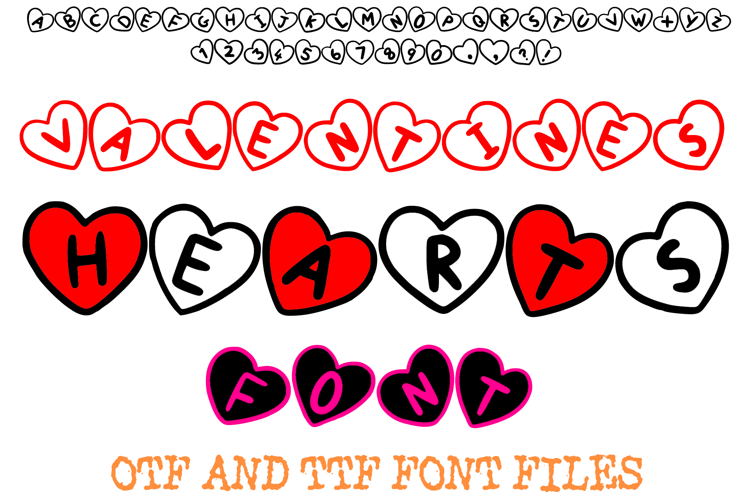
Valentine Heart is a Color font with a Valentine's Day
Valentine Heart is a Color font with a Valentine's Day theme. It embodies playfulness and authenticity and is the perfect choice for all your favorite projects, or even for blog posts, logos, branding, ads, invitations, greeting cards, planners, photo albums, decorations, and much more. Add it to any of your designs, and enjoy the results!